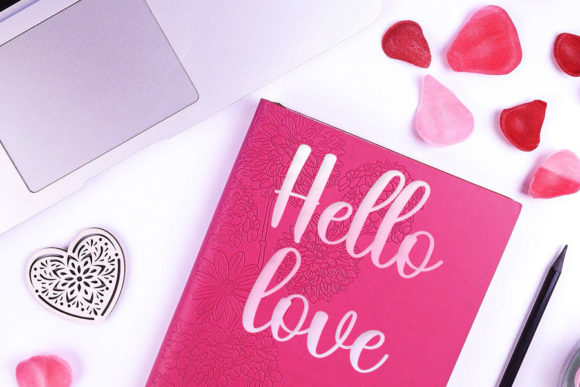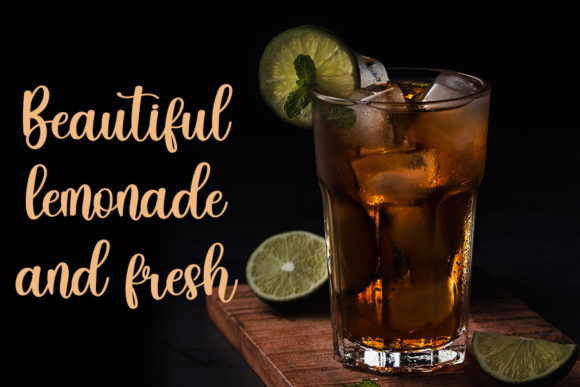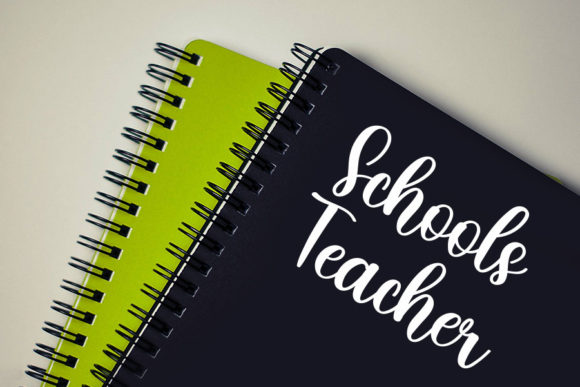
About Black Pastel Font
Black Pastel is a casual handwritten font, carefully designed to become a true favorite. It maintains its classy calligraphic influences while feeling contemporary and fresh. Fall in love with it and bring your projects to the highest levels!